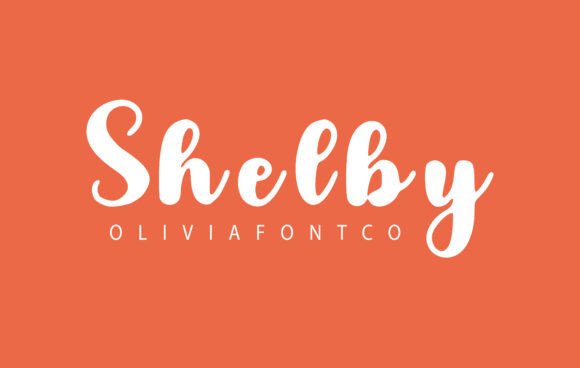
Shelby Font: The Ultimate Handwritten Font for Creative Expression
The Shelby font is a stunning, authentic handwritten font that exudes a romantic touch. Designed to be a true favorite among designers and creative enthusiasts, this font has the potential to elevate your creative ideas to new heights. With its exceptional legibility and versatility, the Shelby font is perfect for a wide range of design applications, from magazine headlines and social media graphics to branding, wedding invitations, and more.
The Origins of Shelby Font
The Shelby font is a carefully crafted, handwritten typeface that boasts a unique and distinctive character. Its creator, [designer name], drew inspiration from traditional handwritten scripts to develop a font that is both elegant and approachable. The result is a font that is not only visually appealing but also highly legible, making it an excellent choice for both title and body text.
Key Features of Shelby Font
- Authentic Handwritten Style: The Shelby font features a genuine, handwritten look that adds a personal touch to any design.
- Romantic Touch: With its elegant and flowing lines, this font exudes a romantic charm that is perfect for wedding invitations, Valentine’s Day designs, and other special occasions.
- High Legibility: The Shelby font is designed to be highly legible, making it suitable for both title and body text.
- Versatile: This font can be used for a wide range of design applications, from magazine headlines and social media graphics to branding, wedding invitations, and more.
Design Applications for Shelby Font
The Shelby font is an incredibly versatile typeface that can be used for various design applications. Here are some ideas to get you started:
Magazine Headlines and Articles
The Shelby font is perfect for magazine headlines, adding a touch of elegance and sophistication to any article. Its high legibility makes it suitable for body text, ensuring that your readers can easily follow along.
Social Media Graphics
Create stunning social media graphics with the Shelby font. Its unique and eye-catching style is sure to grab the attention of your followers and make your posts stand out.
Branding and Logo Design
The Shelby font can be used to create a distinctive brand identity. Its elegant and sophisticated style makes it perfect for logos, business cards, and other marketing materials.
Wedding Invitations and Stationery
The romantic touch of the Shelby font makes it an excellent choice for wedding invitations, stationery, and other special occasion designs.
Cards and Greeting Cards
Create beautiful cards and greeting cards with the Shelby font. Its elegant style and high legibility make it perfect for any occasion.
Tips for Using Shelby Font Effectively
To get the most out of the Shelby font, here are some tips to keep in mind:
Pair with Other Fonts
Experiment with pairing the Shelby font with other fonts to create a unique and visually appealing combination.
Adjust Font Size and Style
Play around with different font sizes and styles to add emphasis and create visual hierarchy in your designs.
Use for Headlines and Titles
The Shelby font is perfect for headlines and titles. Use it to add a touch of elegance and sophistication to your designs.
Experiment with Colors
Try out different colors to find the perfect match for your design. The Shelby font looks great in a variety of colors, from bold and bright to soft and pastel.